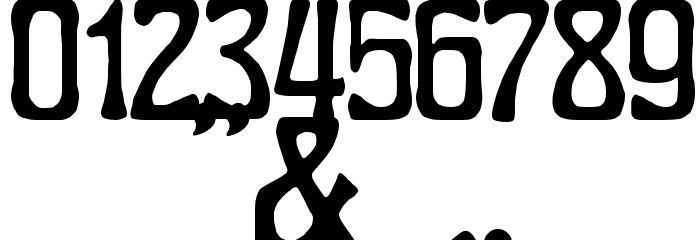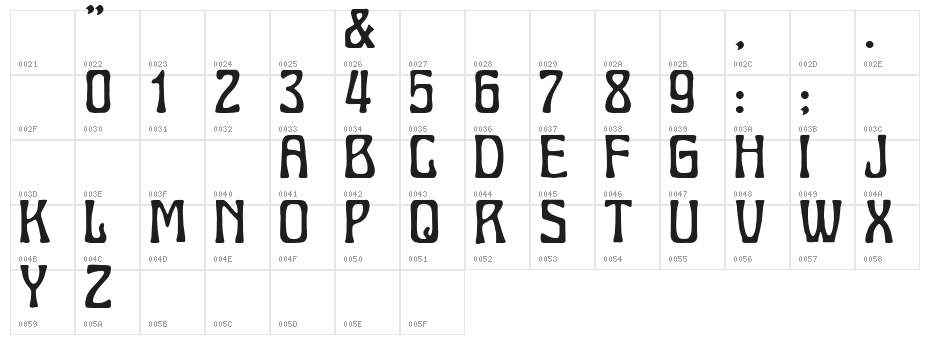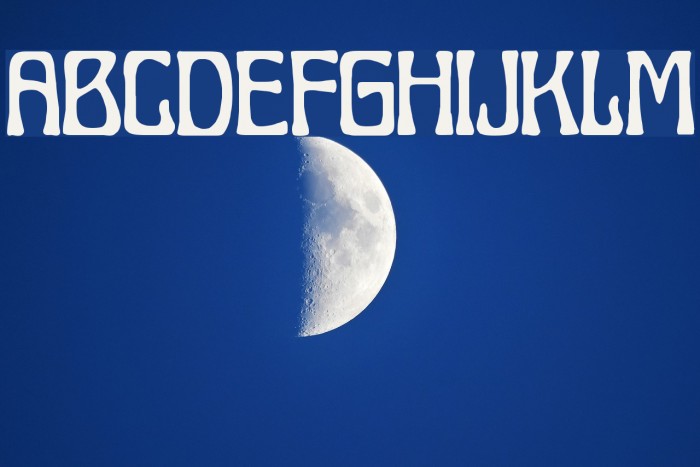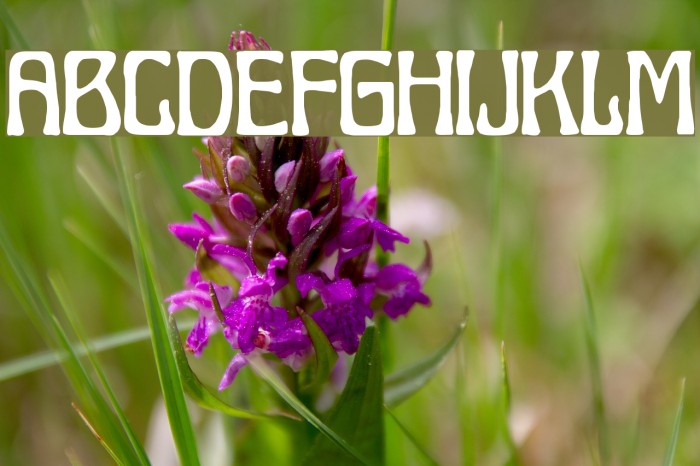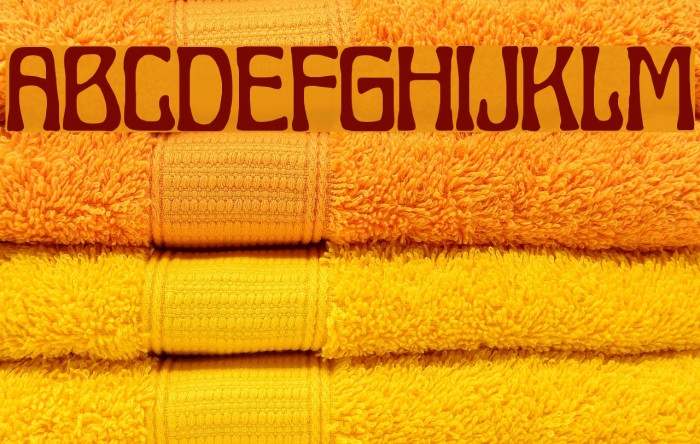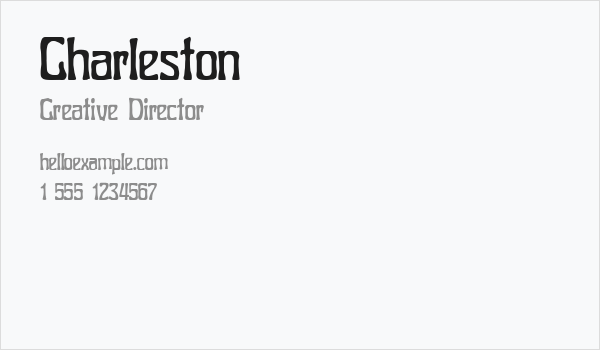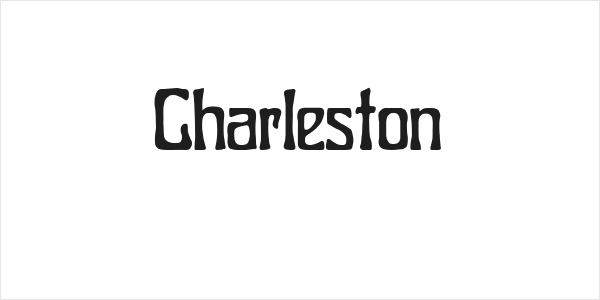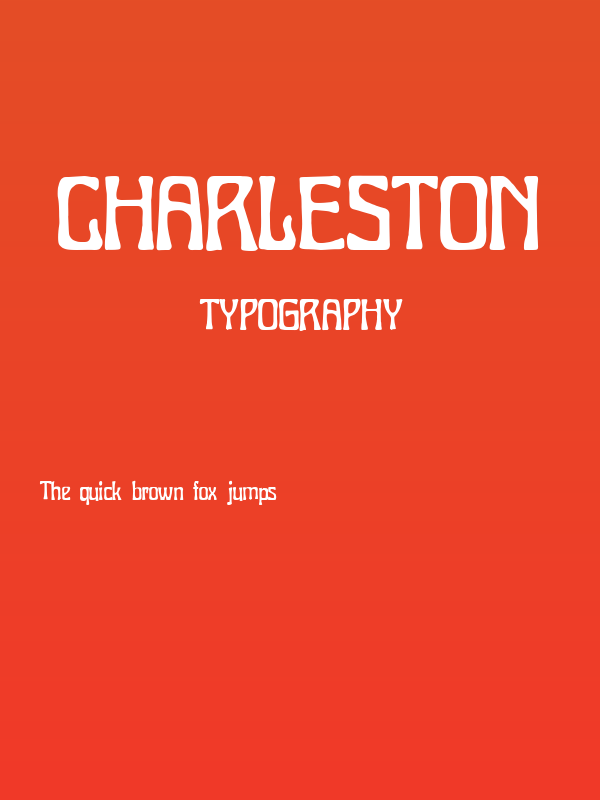
Charleston Font
Charleston Description
This font features a unique and artistic style with a hand-drawn appearance. The characters are bold and slightly irregular, giving them a playful and whimsical feel. The uppercase letters are tall and narrow, while the lowercase letters maintain a consistent height, adding to the font's quirky charm. The numbers are distinct and easily readable, with a slight curve that complements the overall design. Special characters like the ampersand and dollar sign are creatively styled, enhancing the font's decorative appeal. This font is perfect for projects that require a touch of creativity and individuality.